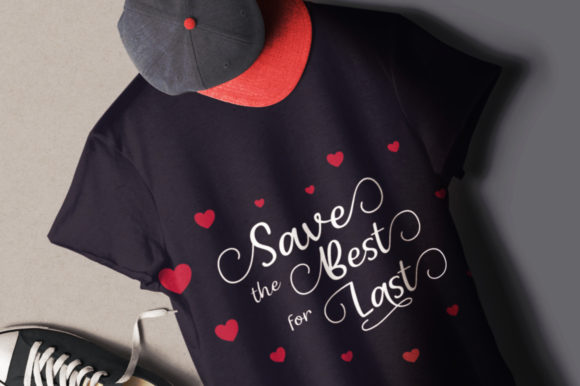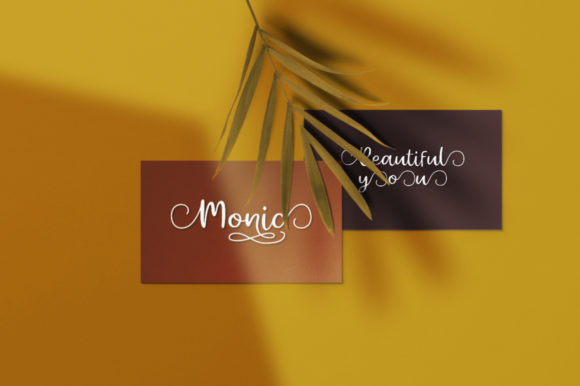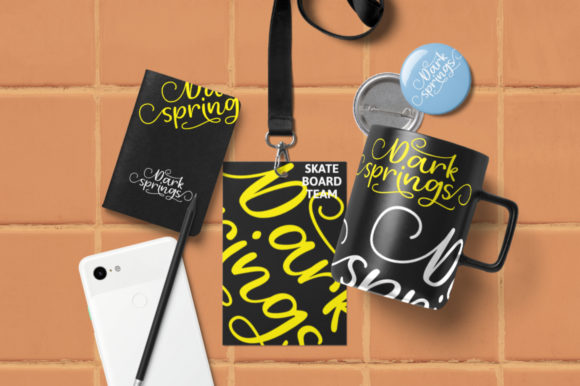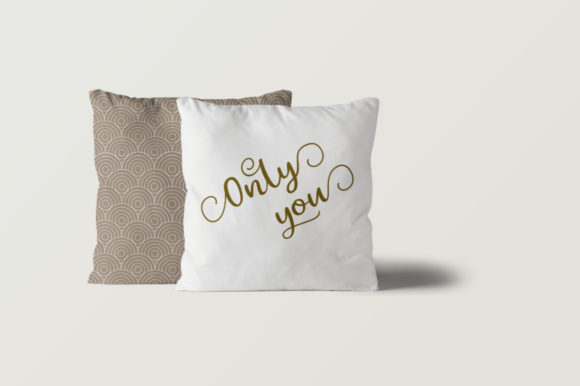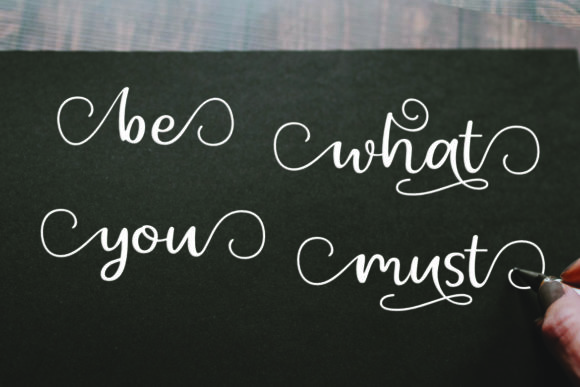
The Elegance of Burswood Font: A Designer’s Delight
I still remember the time I was working on a project for a luxury brand, and I was struggling to find the perfect font to convey their sophisticated and elegant image. That’s when I stumbled upon Burswood Font, and it instantly became my go-to choice. Its delicate and elegant handwritten style perfectly captured the essence of the brand, and I knew I had found a masterpiece.
An Honest Review of Burswood Font
• ✨ Delicate and elegant handwritten style
• ✅ Well-rounded letters that make it easy to read
• ✅ Incredibly versatile and suitable for various design projects
• ✨ Unique and distinctive character that sets it apart from other fonts
While Burswood Font is an excellent choice for many design projects, there are a few things to keep in mind:
• ⚠️ May not be suitable for very large or very small font sizes
• 🤔 Some letters may appear a bit too connected, which can make it difficult to read in certain contexts
The Backstory of Burswood Font
Burswood Font was designed with the intention of creating a beautiful and elegant handwritten font that would be perfect for a variety of design projects. The designer wanted to create a font that was both refined and approachable, with a unique character that would set it apart from other fonts.
What is Burswood Font? Burswood Font is a delicate and elegant handwritten font with a unique and distinctive character.
Is Burswood Font easy to read? Yes, Burswood Font is generally easy to read, but may not be suitable for very large or very small font sizes.